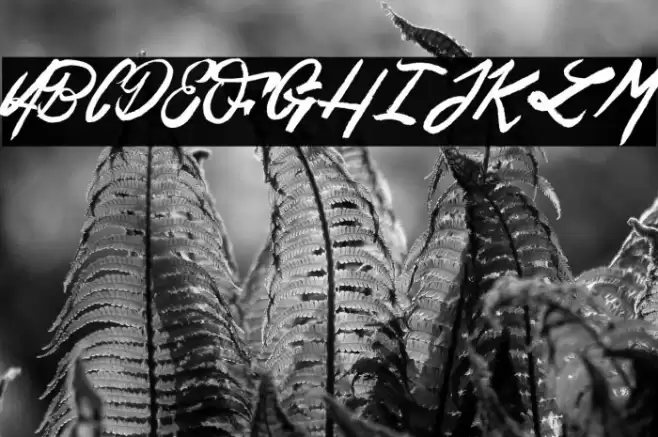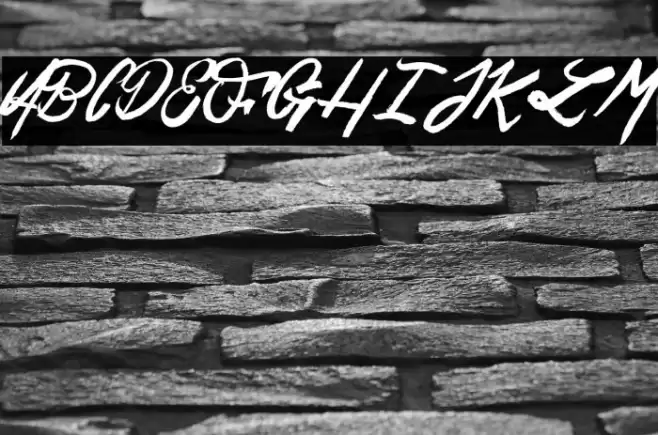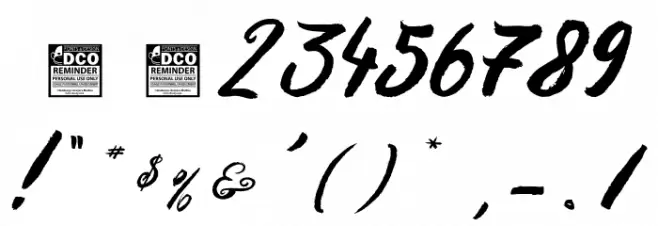
Esteban&Solina_PersonalUseOnly Font
Esteban&Solina_PersonalUseOnly Description
This font exudes a dynamic and expressive style, characterized by its bold, brush-like strokes that convey a sense of movement and energy. The uppercase letters are particularly striking, with their sweeping curves and varying line thicknesses, while the lowercase letters maintain a consistent flow that complements the overall aesthetic. The numerals and special characters are equally bold, ensuring a cohesive look across all elements. This font's handwritten appearance gives it a personal and artistic touch, making it suitable for projects that require a creative and informal vibe.
A bold, brush-style font with dynamic strokes and a handwritten aesthetic from Uncategorized fonts.
- Font: Esteban&Solina_PersonalUseOnly
- Proposed Projects: Ideal for artistic projects, branding, posters, and invitations that require a personal and creative touch.